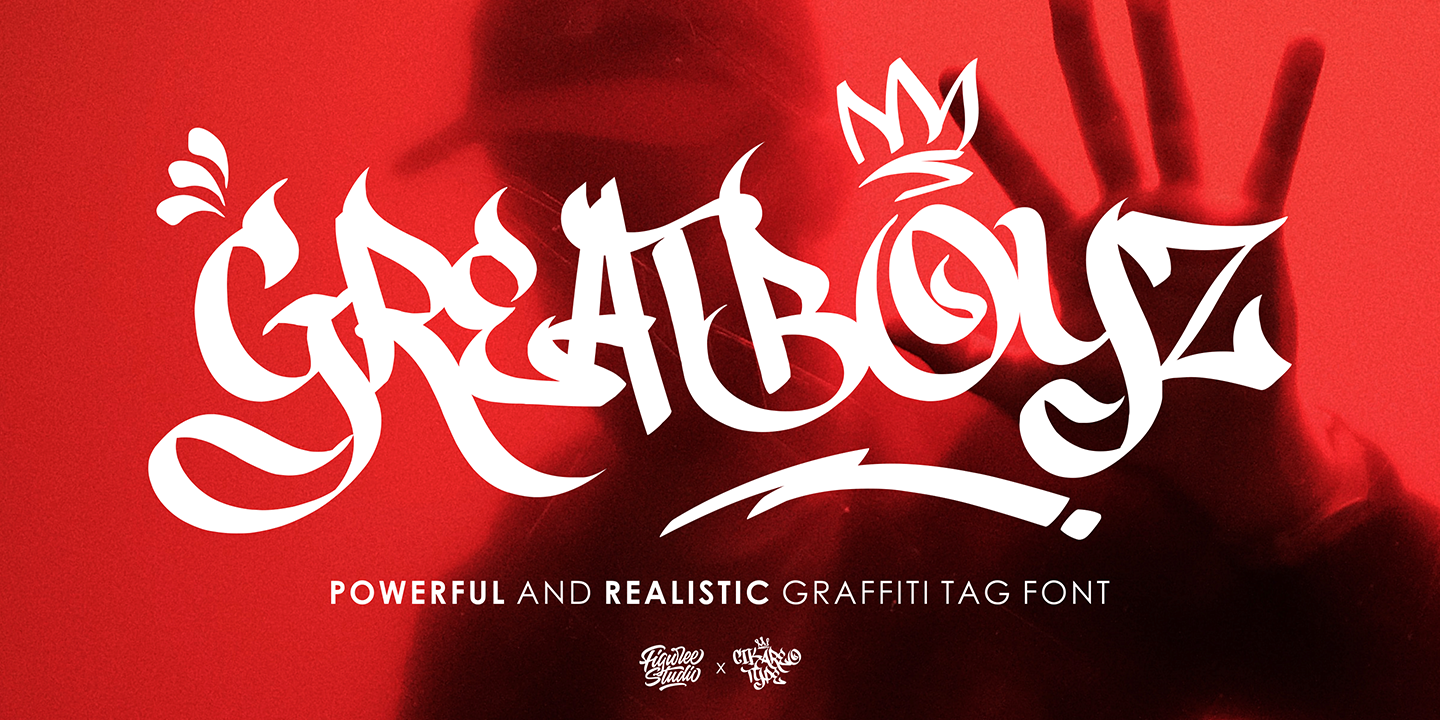
Add bold personality and street-style energy to your designs with Greatboyz Font Free Download. This dynamic brush script typeface features thick strokes, edgy curves, and a raw, hand-painted look—perfect for apparel branding, music covers, sports graphics, posters, and urban-themed design work. Greatboyz Font Free Download captures the essence of rebellious creativity and modern flair.
The expressive style of Greatboyz Font makes it a standout choice for impactful titles and eye-catching logos. Whether you’re designing skatewear, festival promos, or energetic social media content, this font delivers attitude and authenticity with every letter.